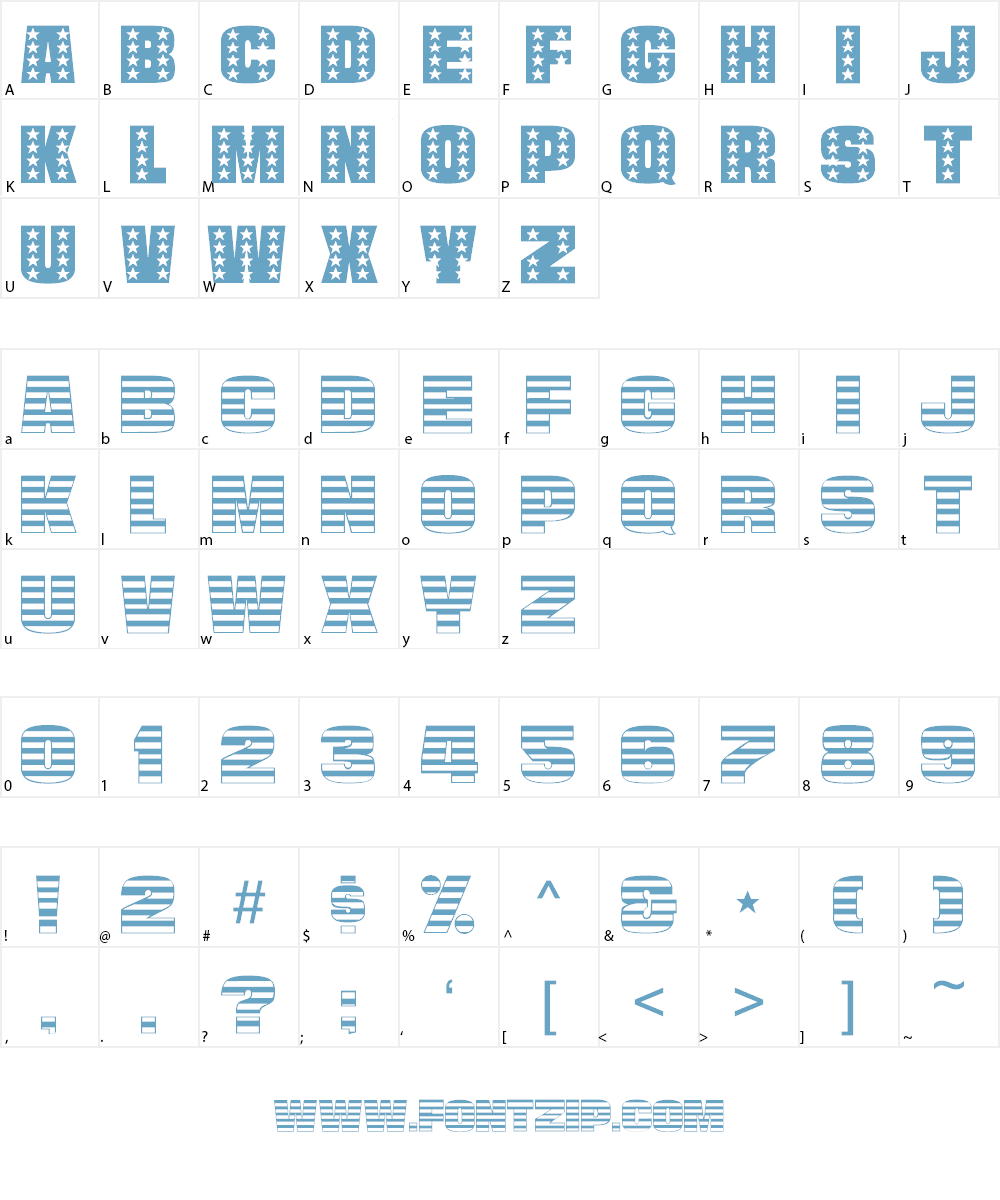
StarsAndStripes is an all caps display font giving copy a patriotic
look. StarsAndStripes gives the typist and graphic artist versatility to
work with a font that can be all stars, all stripes, or combined stars
and stripes.
Use for eye-catching, year round notices, headlines and ad display to
convey yankee-doodle, patriotic messages.